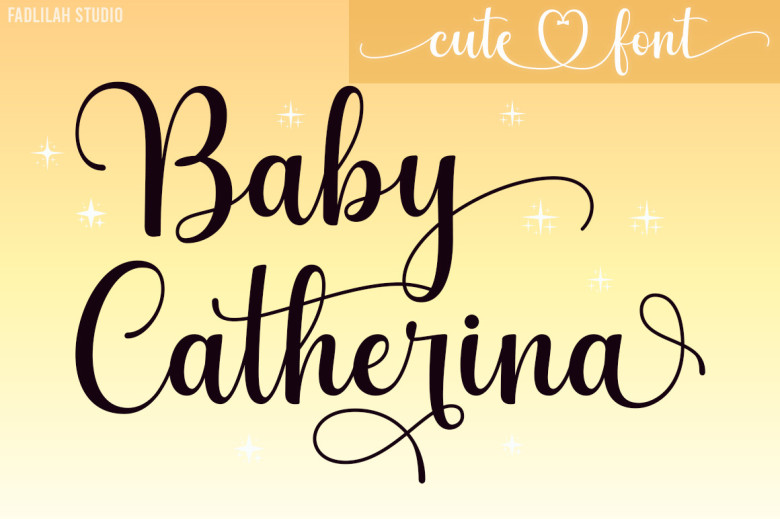
Baby Catherina Font
Baby Catherina a flowing calligraphy script font, described by an elegant touch, perfect for your favorite projects. Fall in love with its incredibly distinct and timeless style and use it to create spectacular designs!
Baby Catherina Calligraphy Script Font